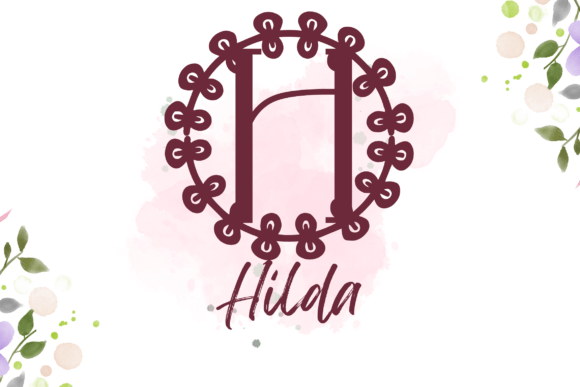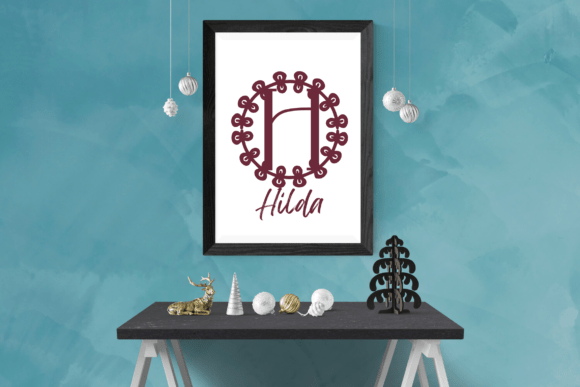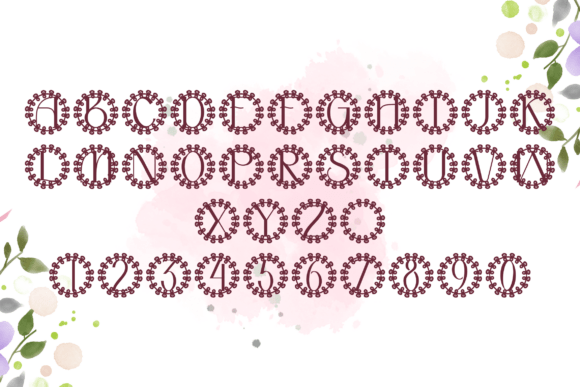
Introduction to Leafori Monogram Font
Have you ever stumbled upon a beautiful design that sparks inspiration and makes you want to create something equally stunning? For many designers, this moment is a treasure trove of creativity and a chance to bring their ideas to life. The Leafori Monogram Font is one such design resource that can elevate your creative project and make it truly special.
With its unique blend of soft botanical elements and elegant monogram design, Leafori Monogram Font is a high-quality design tool that offers endless possibilities for creative expression. Whether you’re working on a wedding suite, a boutique logo, or a keepsake gift, this font is sure to bring a touch of sophistication and refinement to your design. And the best part? It’s easy to use, with a fast setup process in popular design software like Canva, Photoshop, and Illustrator.
Key Features of Leafori Monogram Font
- Unique Monogram Design: Leafori Monogram Font is a creative and elegant design resource that can be used for various purposes, including wedding invitations, social media graphics, and more.
- High-Quality Graphics: This font is designed with high-quality graphics, making it perfect for any creative project that requires a touch of sophistication.
- Customizable: Leafori Monogram Font can be customized to fit any design style or theme, making it a versatile design resource for various creative projects.
Honest Review: Leafori Monogram Font
As a designer, I’m always on the lookout for high-quality design resources to elevate my creative projects. Recently, I stumbled upon the Leafori Monogram Font, and I must say it’s been a game-changer for me.
- Stylish and elegant design: The Leafori Monogram Font has a sophisticated look that’s perfect for luxury brands and high-end designs.
- High-quality design: The font is crisp and clear, even at large sizes, making it ideal for various design applications.
- Limited customization options: While the font itself is beautiful, the customization options are somewhat limited, which might not be ideal for designers who prefer more flexibility.
Overall, I’m impressed with the Leafori Monogram Font, and I highly recommend it to designers who are looking for a stylish and elegant font for their creative projects. With its high-quality design and free download option, it’s an excellent design resource to have in your collection.
Yes, the Leafori Monogram Font is perfect for high-quality creative projects, such as logo designs, branding materials, and marketing campaigns. Its high-resolution design ensures that it will look great on various mediums, including print and digital formats.